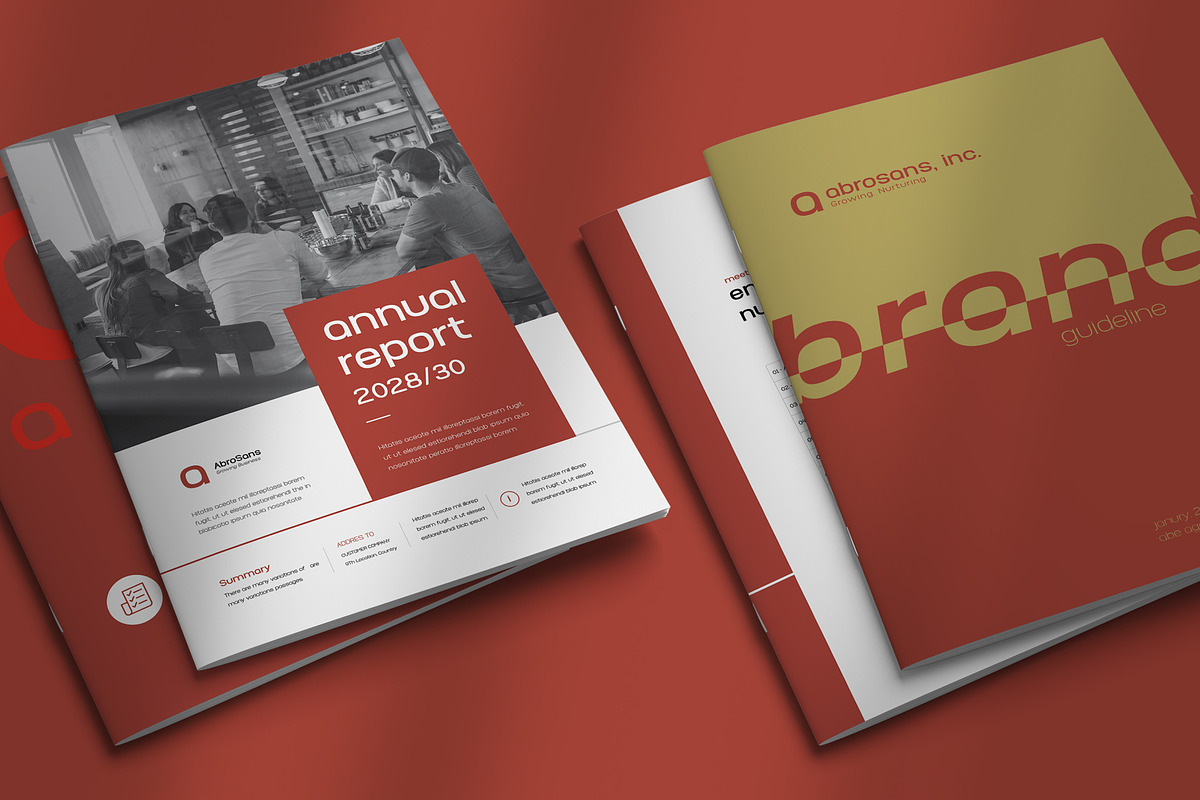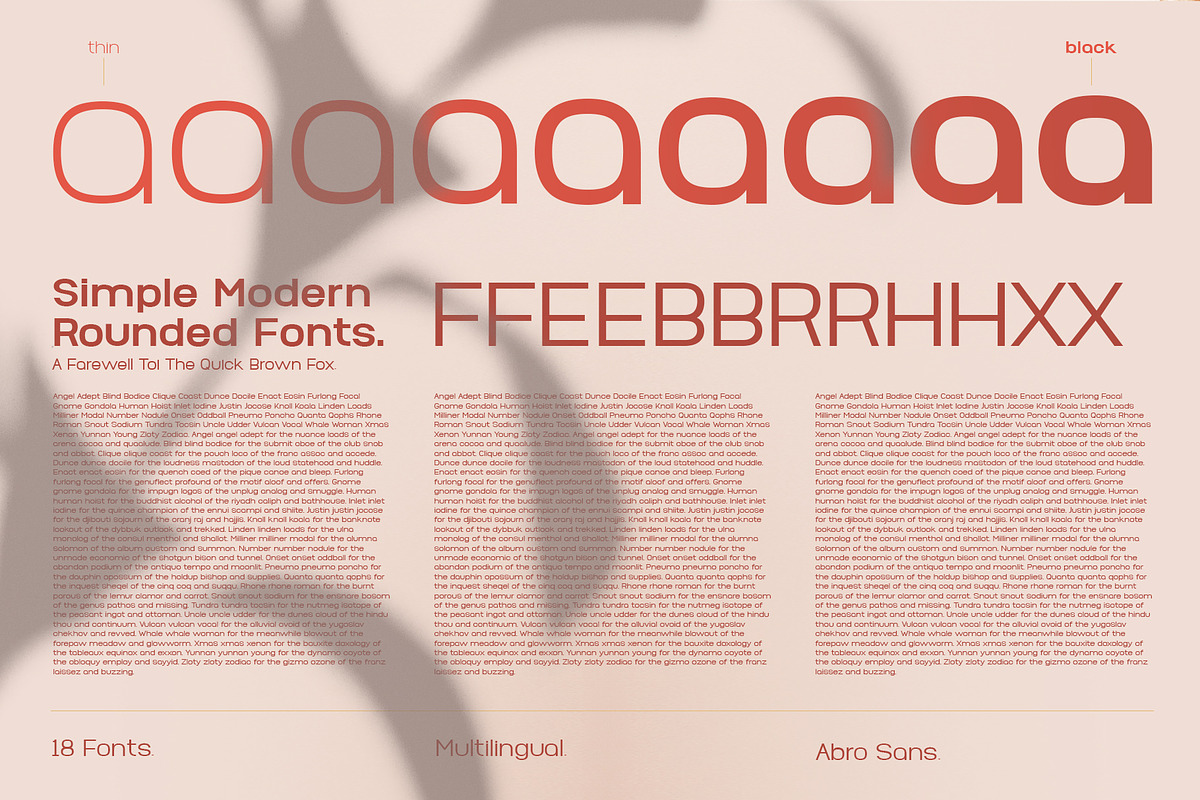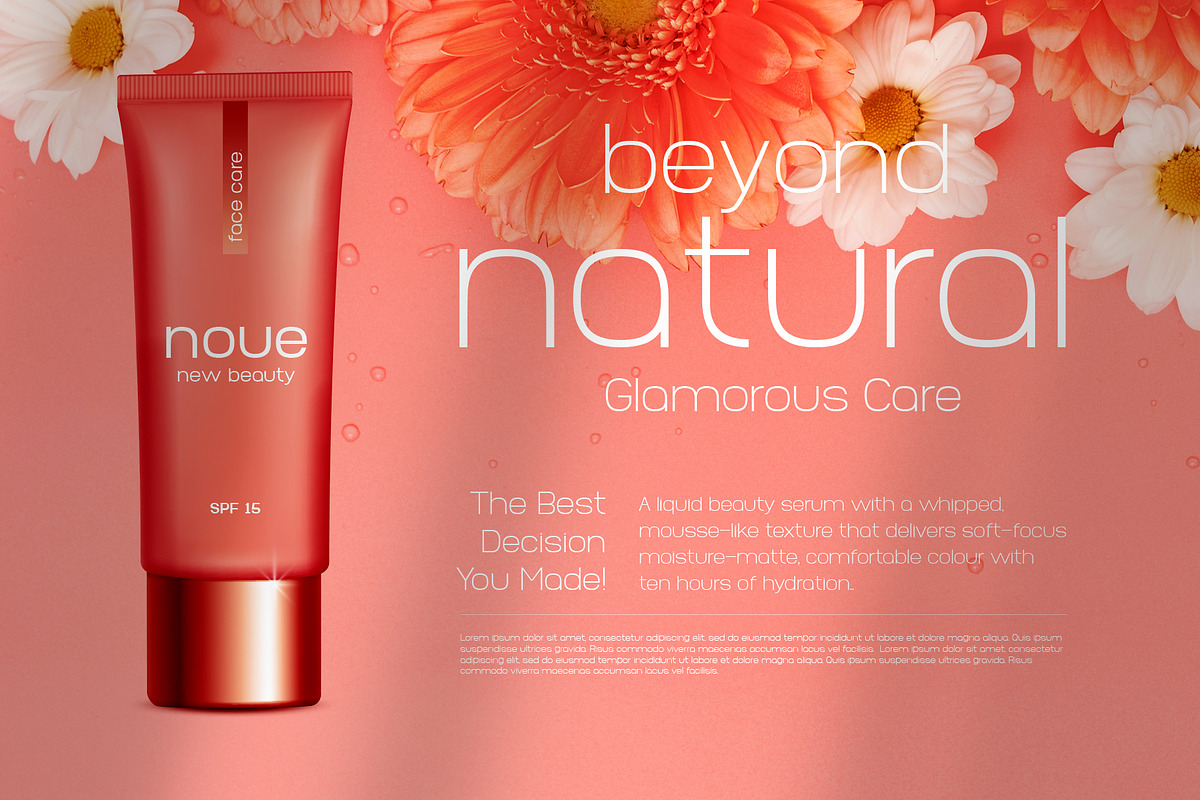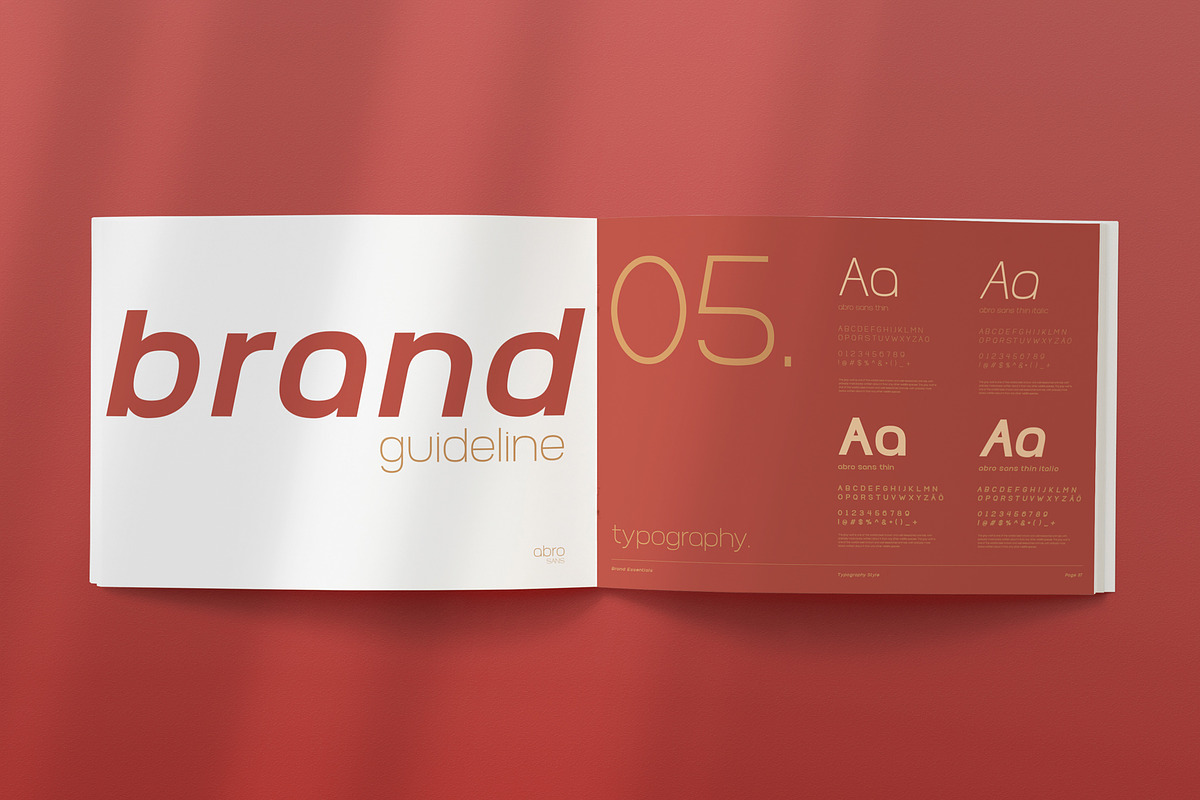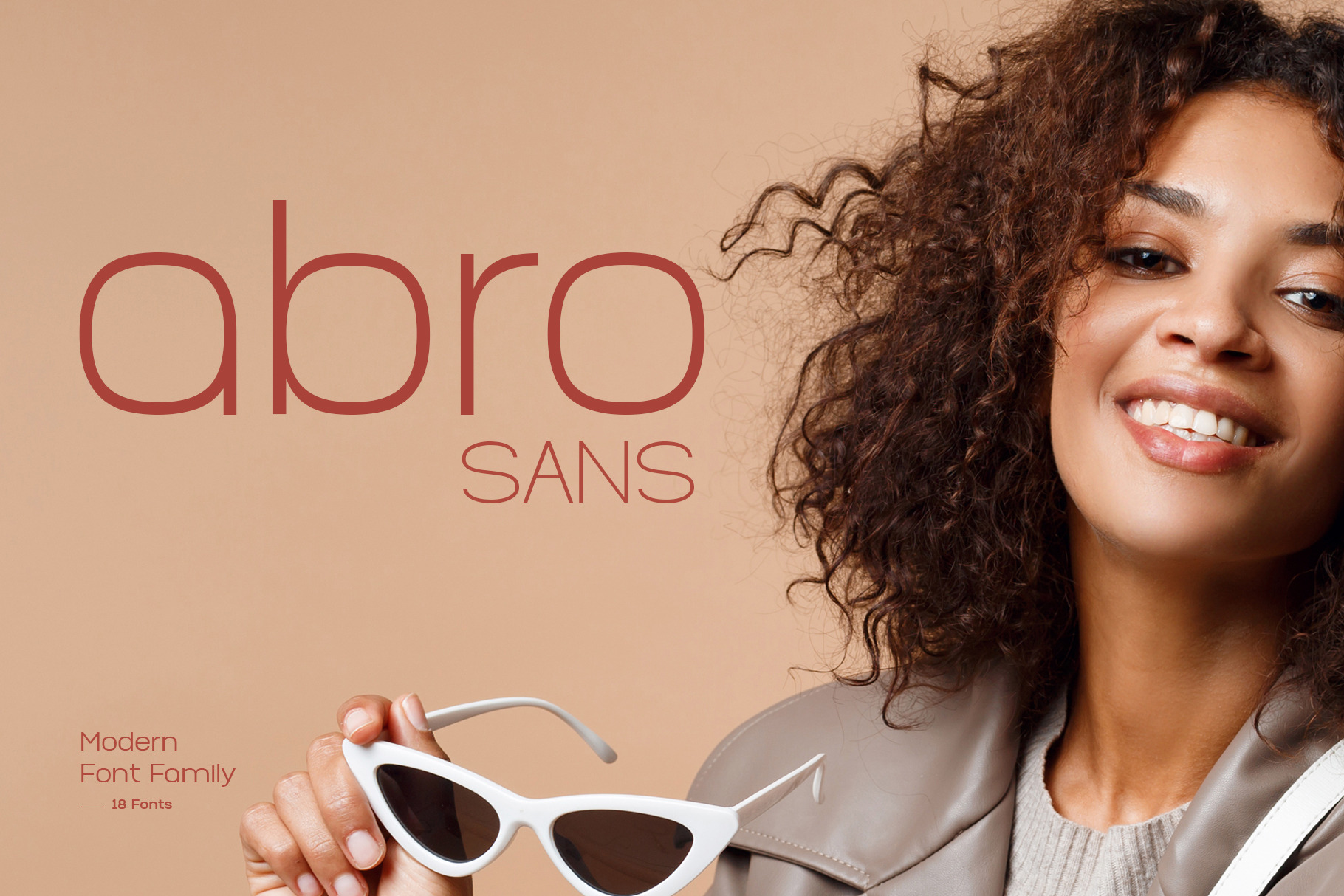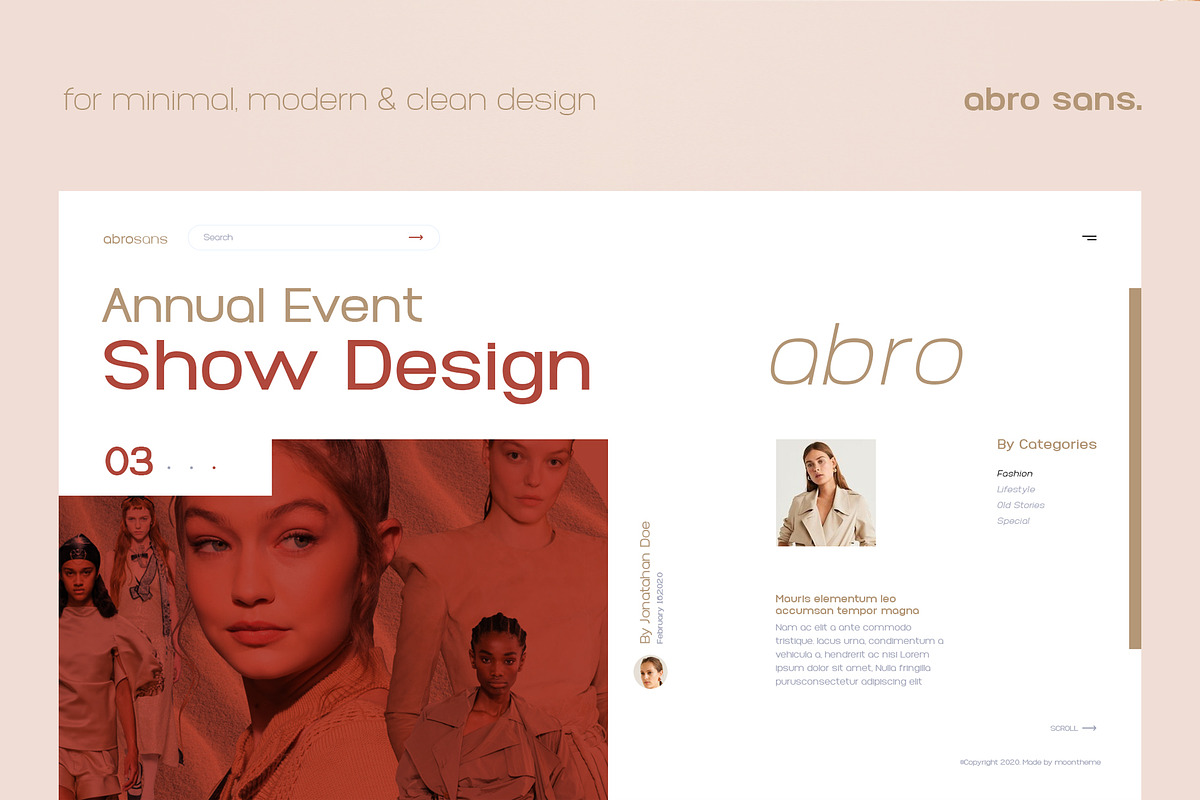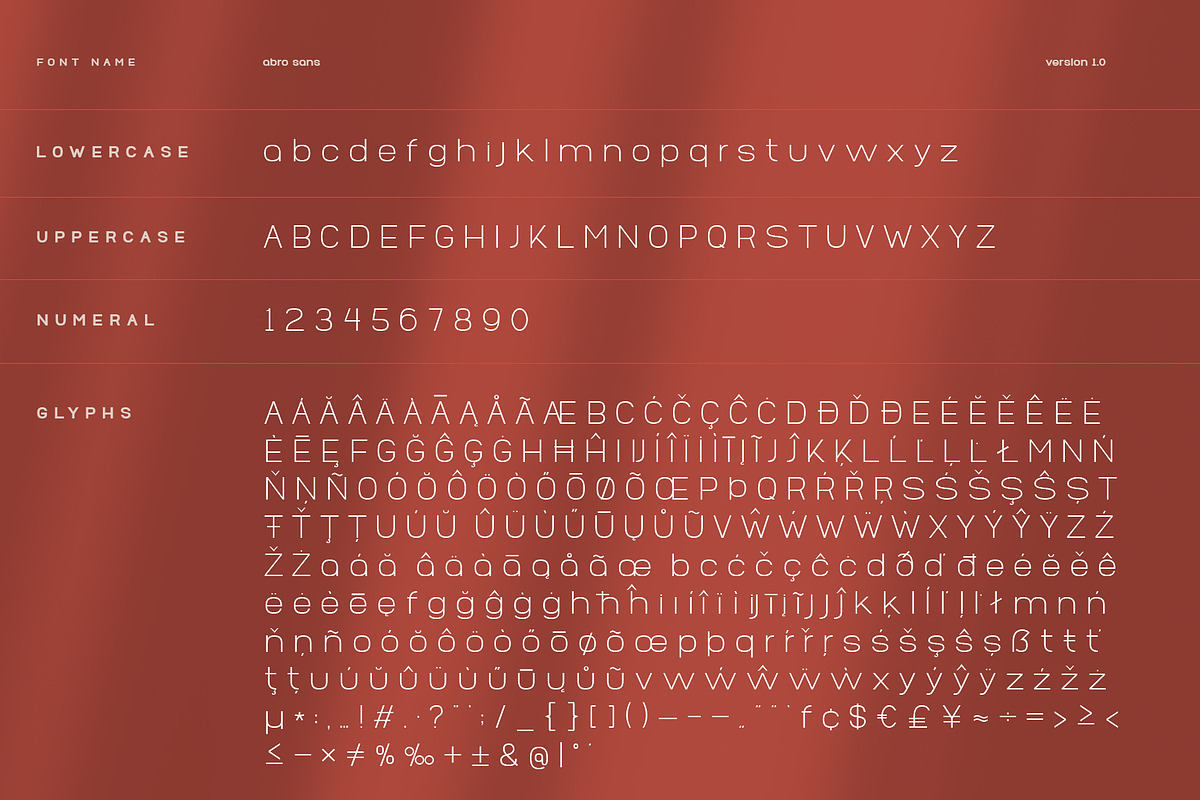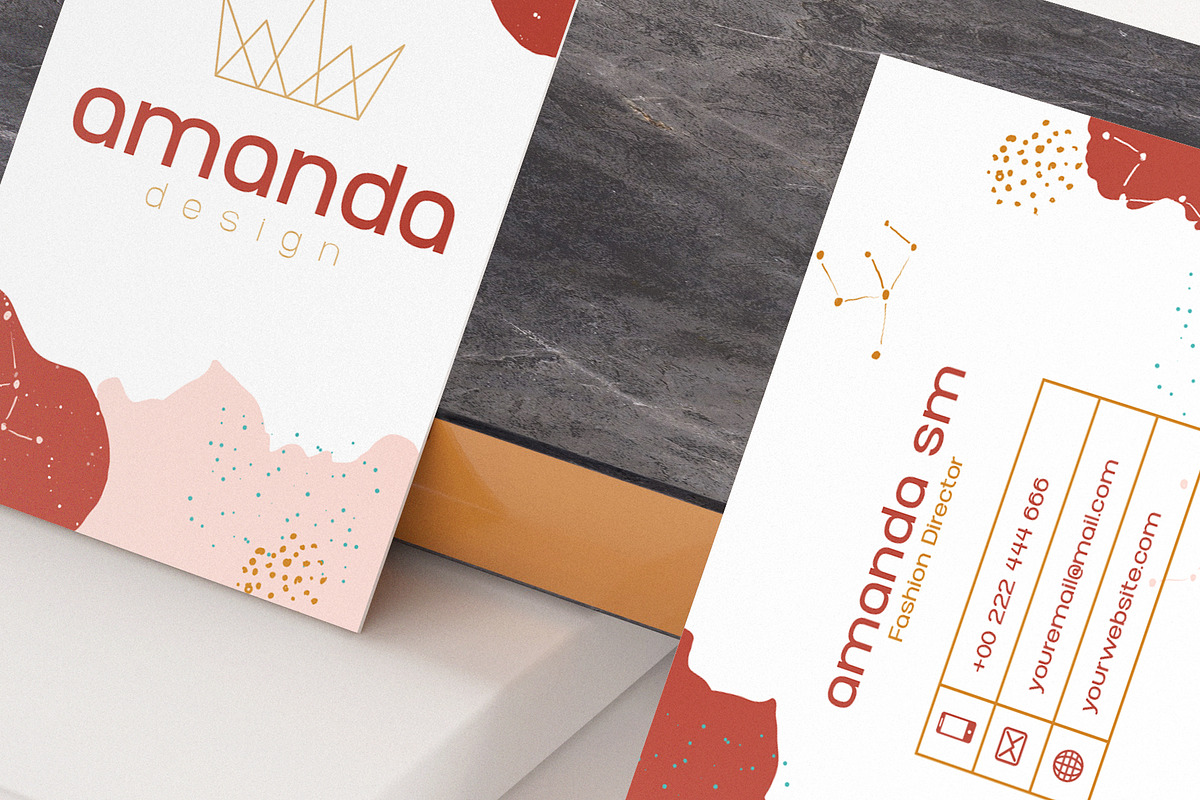
Abro Sans is a Modern Latin Pro Font Family with unique round style so the letter is easy recognize for your audience. You can use this font any purposes such as: text in print design, header or body text in web design, typography set in corporate branding, typeface for advertising, headline or text for magazines, products design, any packaging, sticker labels, etc. We carefully create the fonts and then comes in 18 different weights - for Roman and Italic variation.
- Latin Pro Font with 398 glyphs
- Uppercase letters
- 18 Variations (Thin, Thin Italic, Light, Light Italic, Extra Light, Extra Light Italic, Regular, Regular Italic, Bold, Bold Italic, Semi Bold, Semi Bold Italic, Medium, Medium Italic, Extra Bold, Extra Bold Italic, Black, Black Italic)
- Foreign language characters